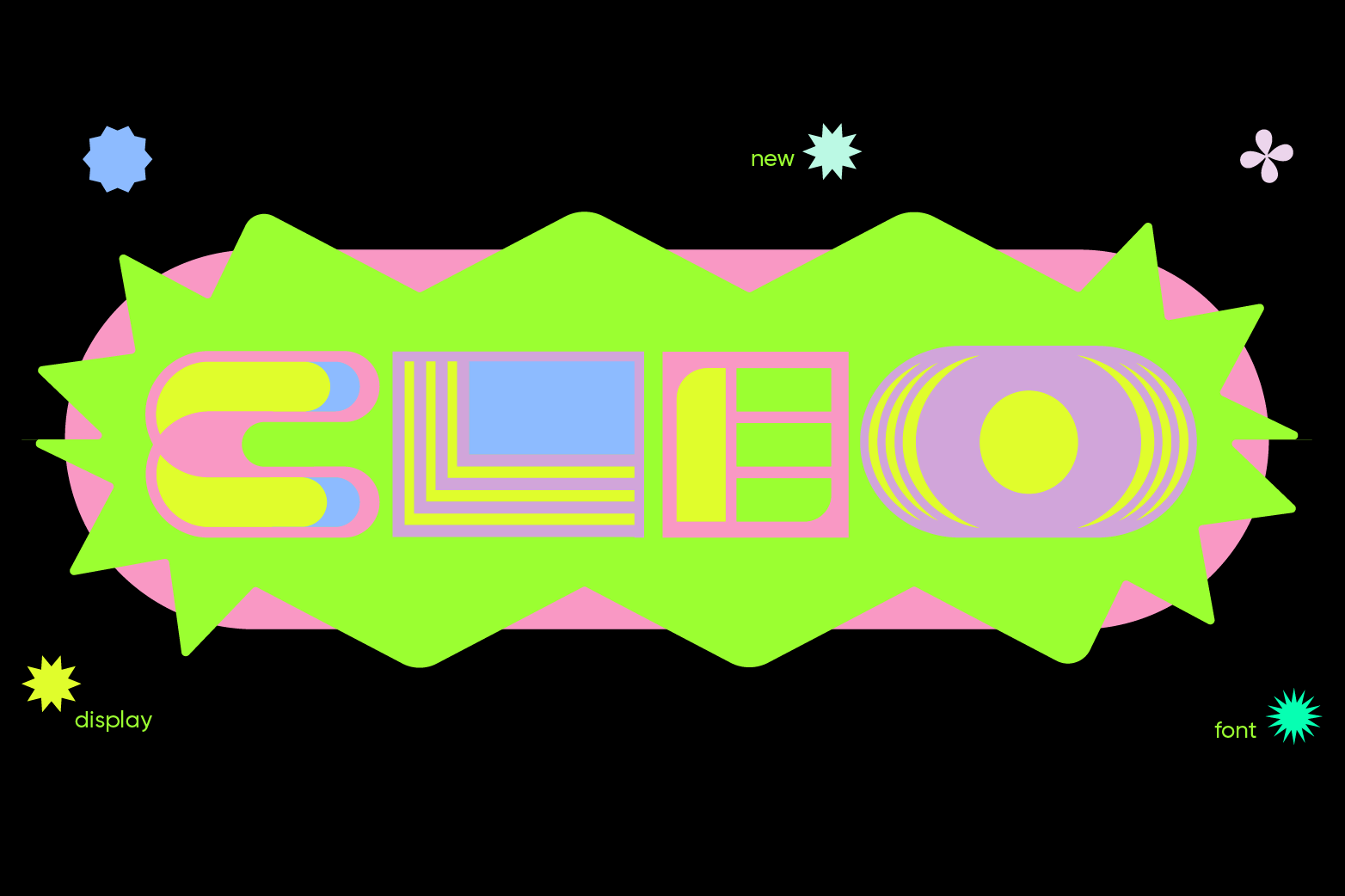
Cleo is a display font with many letters options. The name Cleo comes from the term Eclectic. In the fine arts, eclecticism is a mixed type style whose aspects arise from various sources and styles and which was never constituted as a specific style. Cleo has two variables: regular & color and is designed to be used in large sizes. To see the full project: https://www.behance.net/yaisalinas If there is a problem, question or anything about my product, please sent an email to yai.salinas@gmail.com To follow my work: https://www.instagram.com/yaisalinas/ Thank you!